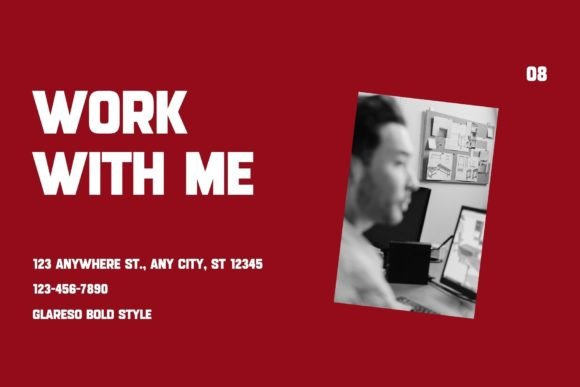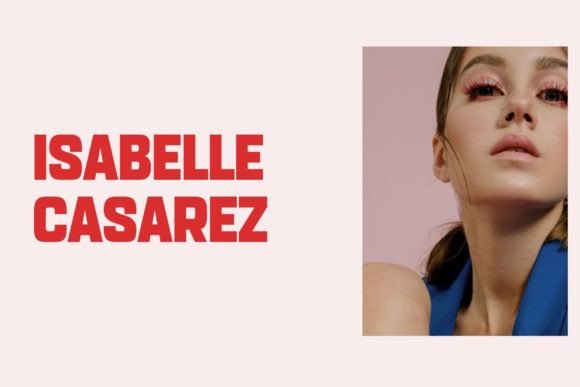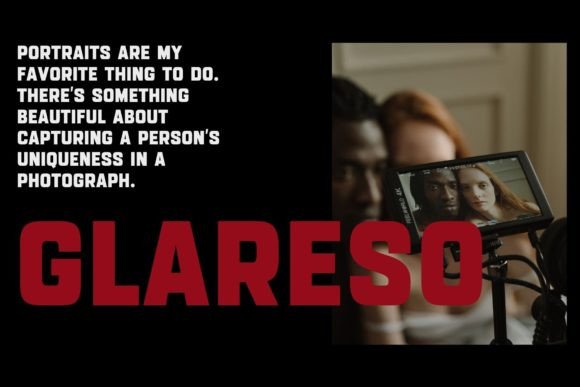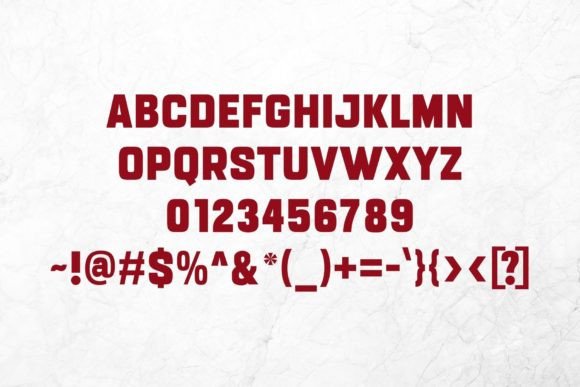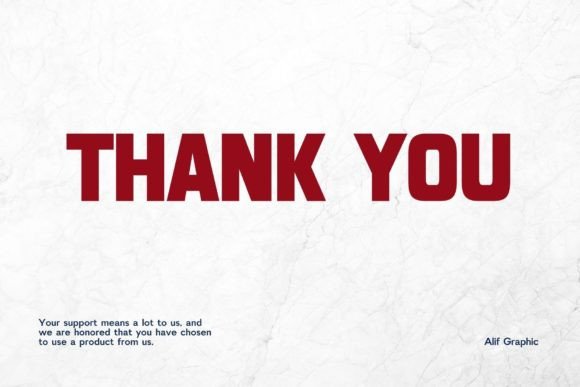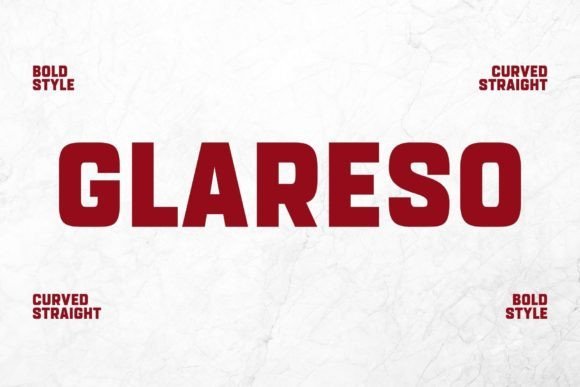
Elevate Your Designs with Glareso Font: A Modern Sans Serif Sensation
Remember the moment when a new font sparks creativity and ignites a fresh idea? That’s exactly what happens when you discover the Glareso Font. As a modern and bold sans serif font, it effortlessly commands attention and brings a contemporary sophistication to your projects.
Glareso Font is designed for the modern designer, offering a clean and sleek aesthetic that’s perfect for a wide range of applications. Whether you’re crafting a sleek brand identity or creating impactful headlines, Glareso Font provides a timeless and versatile design that’s sure to elevate your work. Its confidence and style make it a valuable addition to any designer’s toolkit, helping you make a bold statement that captures the essence of modern simplicity.
• Font Family: Glareso Font
• Font Size: Available in 4 weights: Light, Regular, Medium, and Bold.
• Unique Characteristics: Glareso Font features a modern sans-serif design with a unique blend of geometric and organic elements, making it suitable for a wide range of applications, from corporate branding to digital interfaces.
Glareso Font Review
Overall, I was fairly impressed with the Glareso font, especially when it comes to its display capabilities. ✨ The font’s bold and condensed styles make it perfect for use in headings and titles, and the font’s x-height is nice and high, making it easy to read even at smaller sizes. ✨ The font’s modern design aesthetic is also a plus, making it a great fit for contemporary branding and design projects.
However, there are a few limitations to the font that I wanted to note. ⚠️ Firstly, the font’s italic styles can be a bit inconsistent, with some characters looking more like slanted versions of their upright counterparts rather than true italics. ⚠️ Additionally, the font’s support for certain languages is limited, which may be a concern for designers working on projects that require a wider range of language support.
In terms of overall impression, I would say that the Glareso font is a solid choice for designers looking for a modern, display-focused font. While it may not be perfect, its strengths in terms of display capabilities and modern aesthetic make it a great fit for a wide range of design projects.
Pros:
• Display-focused design makes it perfect for headings and titles
• Modern aesthetic makes it a great fit for contemporary branding and design projects
• High x-height makes it easy to read even at smaller sizes
Cons:
• Inconsistent italic styles
• Limited language support
Tips for Getting the Most Out of Glareso Font
1. Use the Glareso Font in combination with other fonts to create a visually appealing and balanced design.
2. Experiment with different font sizes and styles to add emphasis and hierarchy to your design.
3. Consider using the Glareso Font for headings and titles to create a clear and consistent visual identity.
The Glareso Font is ideal for a range of design applications, including:
– Business presentations and reports
– Marketing materials and brochures
– Website headers and footers
– Social media graphics and ads